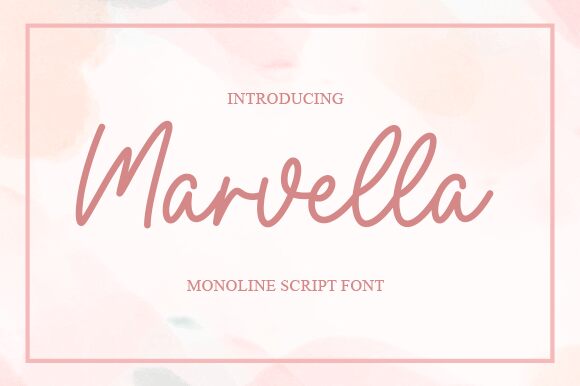
Marvella
Marvella, the charming semi-light handwritten font designed by Graphix Line Studio, is perfect for a multitude of creative projects. Its playful and organic feel makes it ideal for children’s books, greeting cards, and invitations. The unique character of Marvella also lends itself to branding and logo design for businesses in the beauty, fashion, or food industries. Whether you’re designing a website, packaging or signage, this elegant typeface will add a touch of personality to your project. With its legibility and versatility, Marvella is sure to become a favorite among designers looking for a distinctive handwritten font.